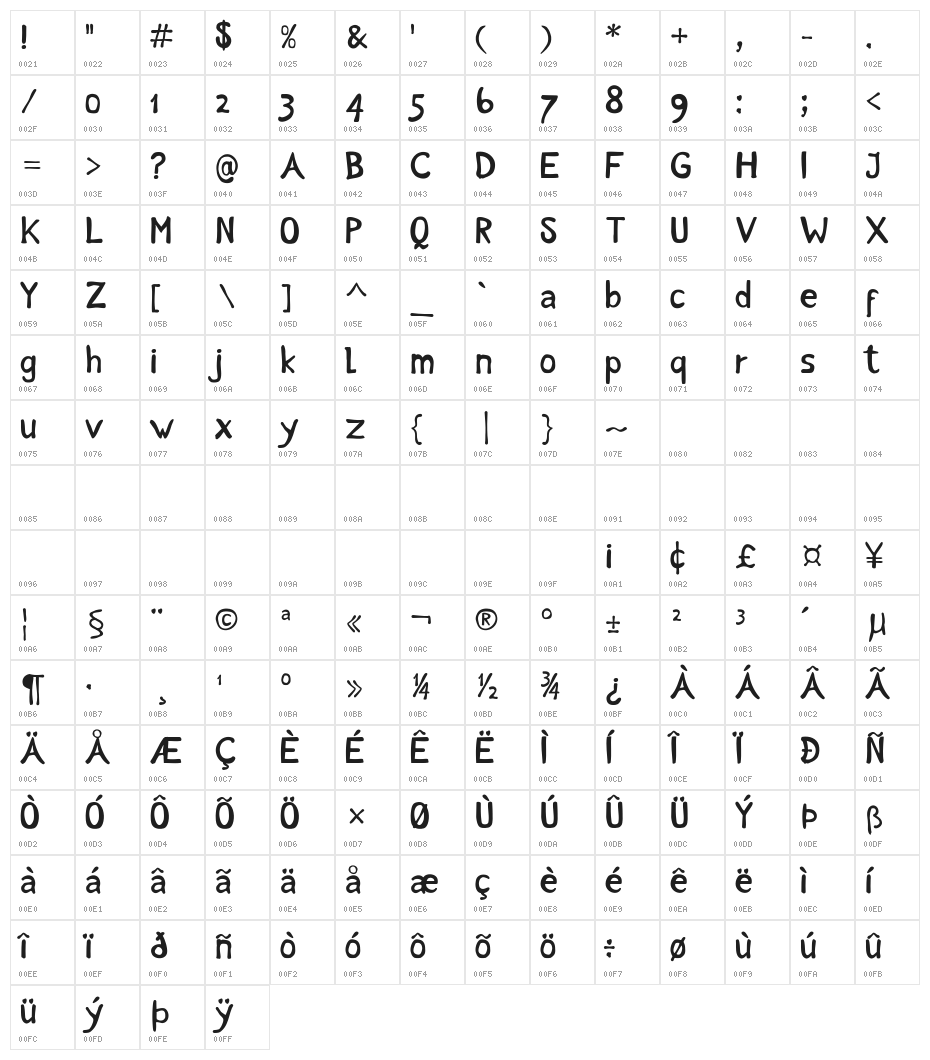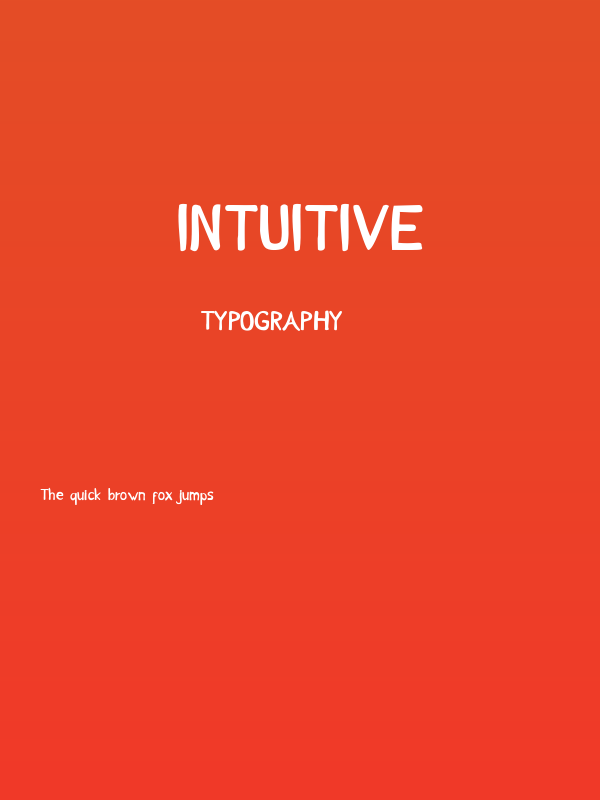
Intuitive Font
Intuitive Description
This font exhibits a playful and informal style, characterized by its hand-drawn appearance. The letters have a whimsical, slightly irregular form, which adds a sense of movement and personality. The strokes are bold and consistent, providing a strong visual presence. The uppercase and lowercase letters maintain a cohesive look, while the numerals and special characters complement the overall design. This font's unique charm makes it suitable for projects that require a casual and friendly tone.
Use CaseHeadlines, Logos, Informal Text
Proposed ProjectsIdeal for children's books, greeting cards, playful branding, and casual invitations.